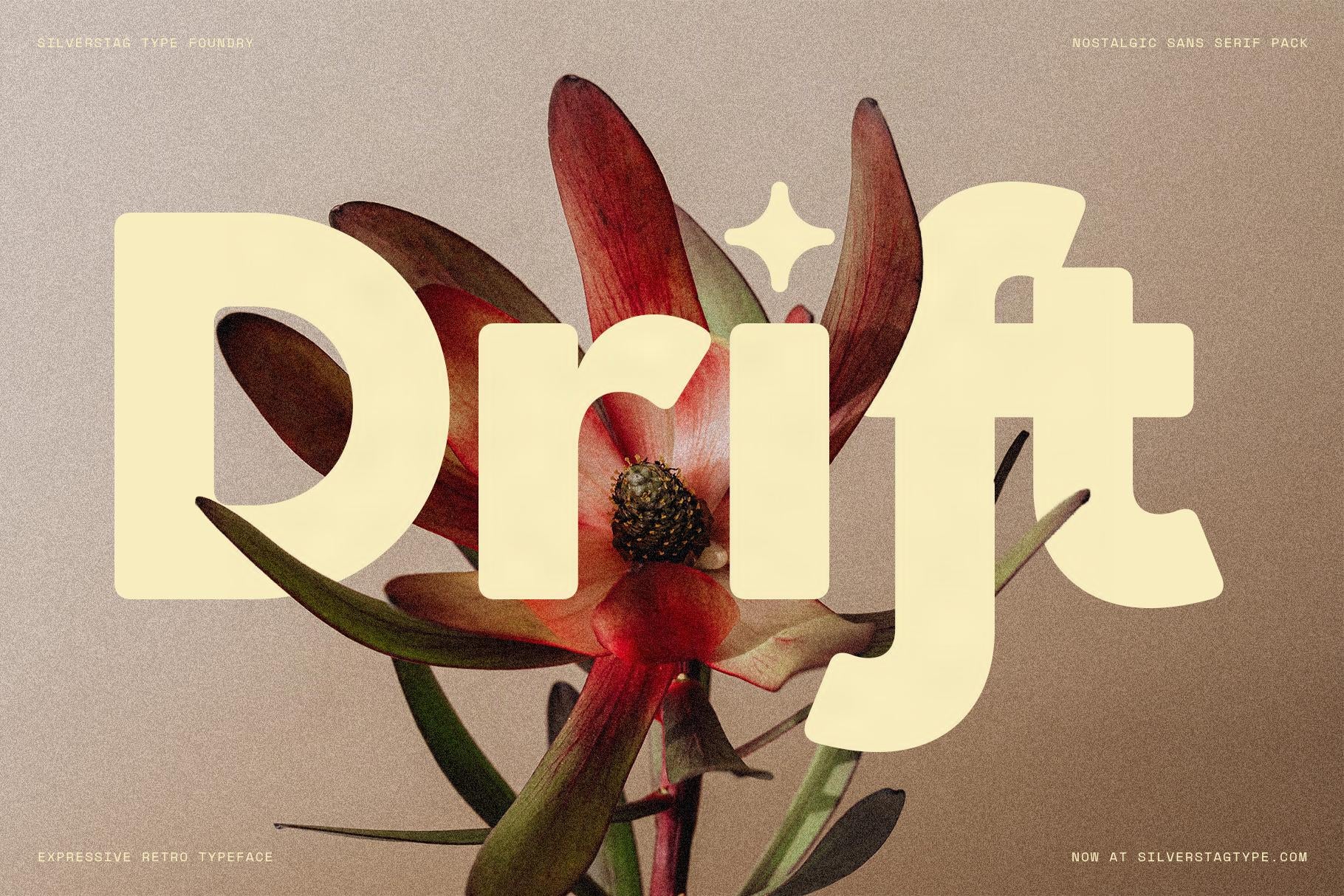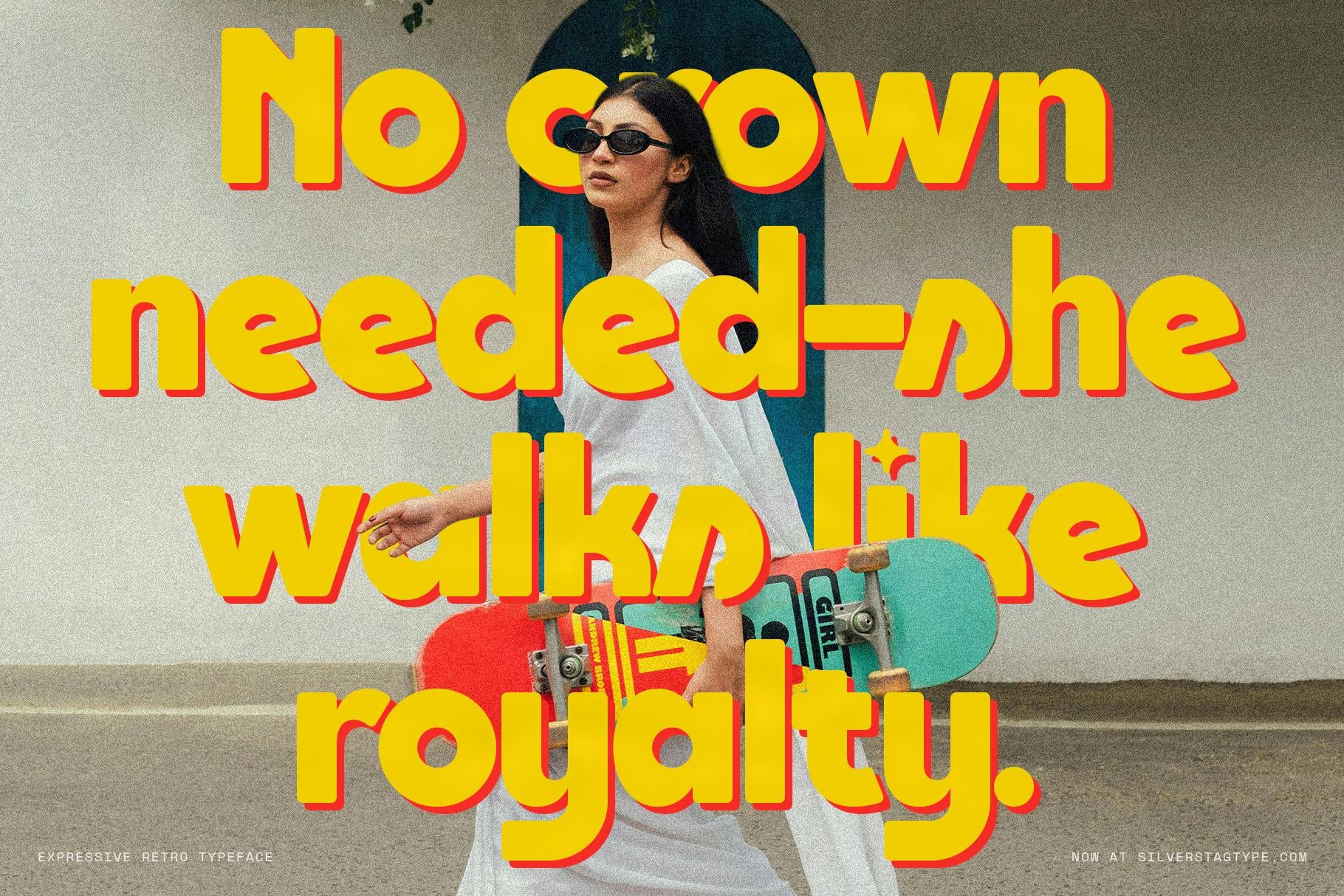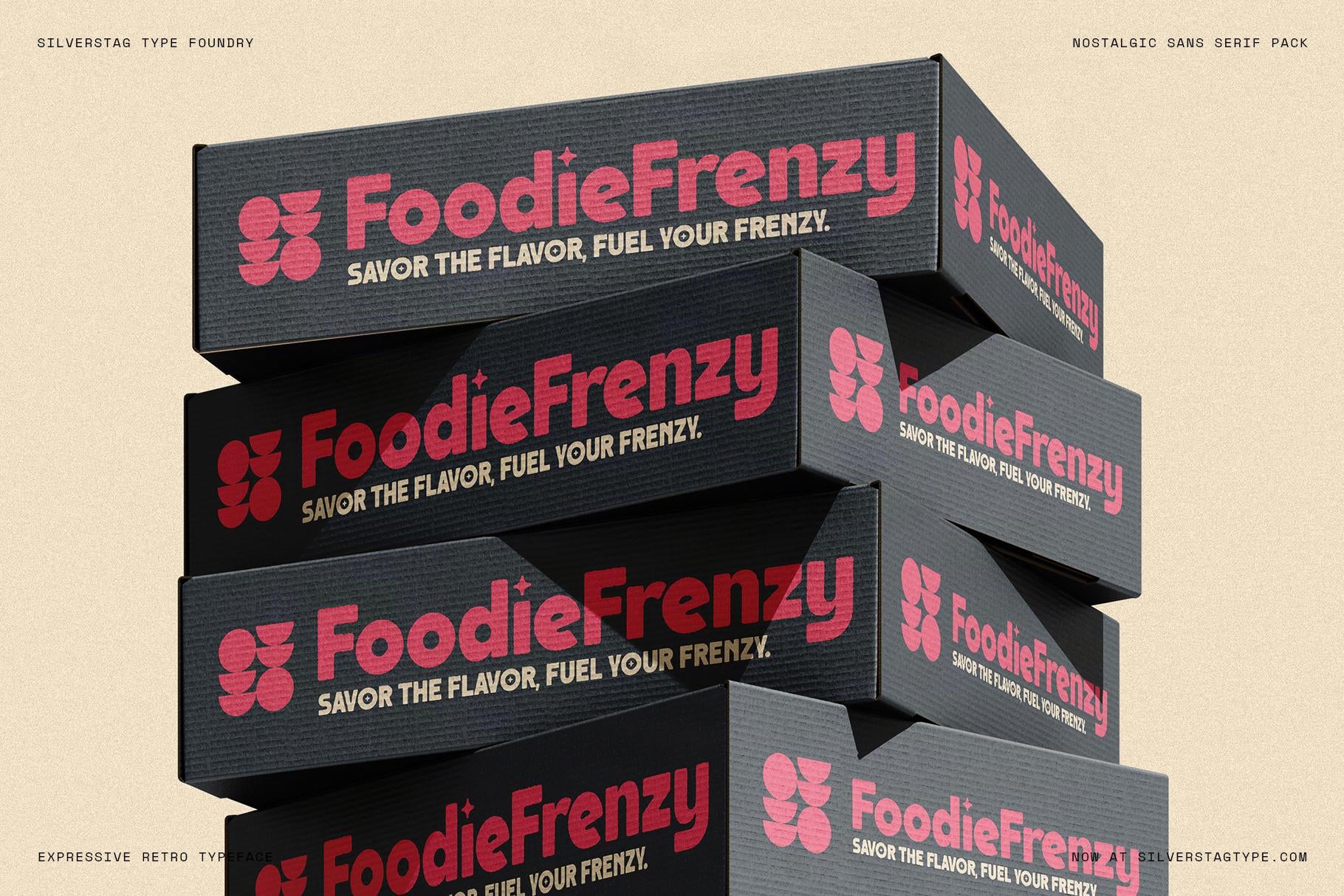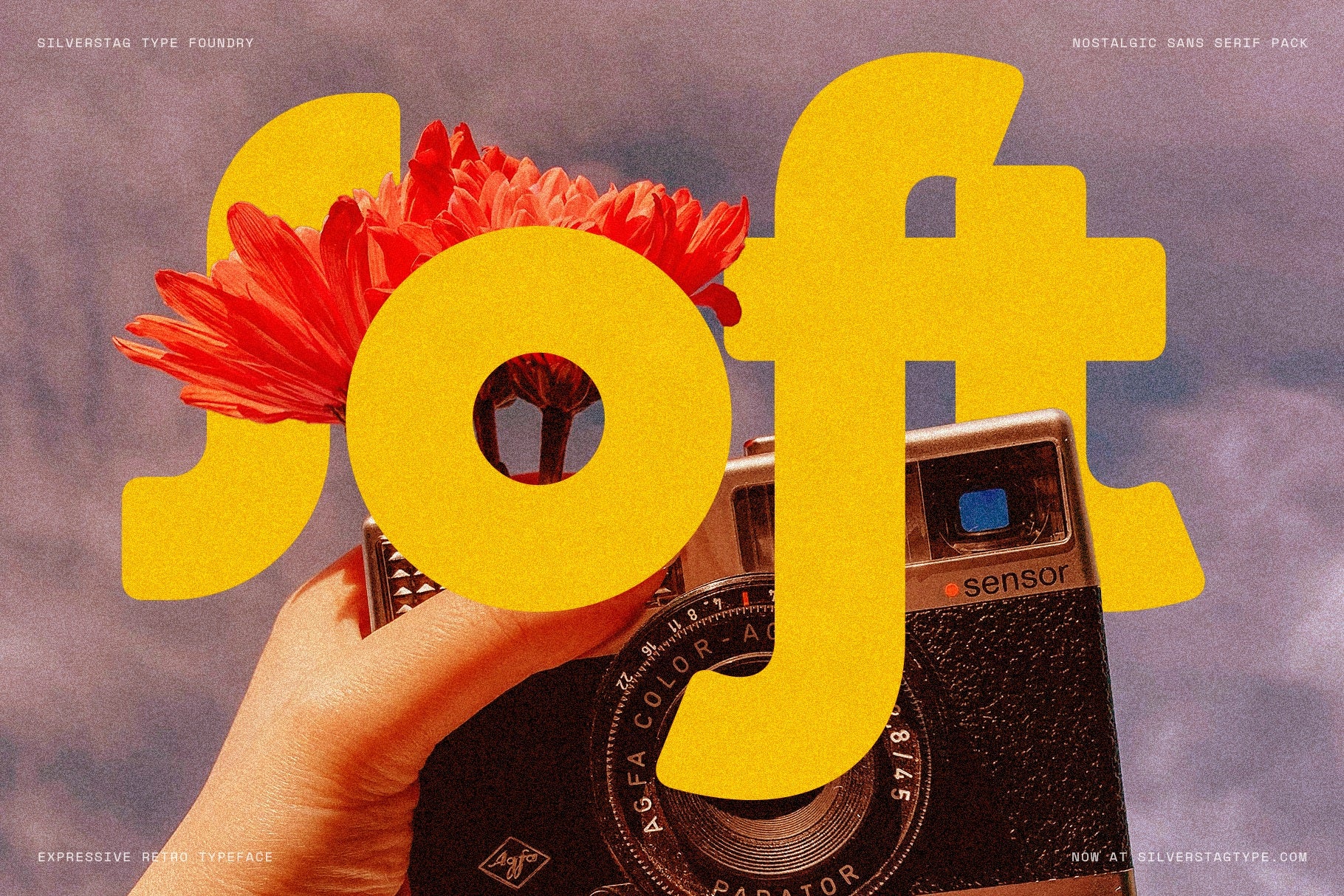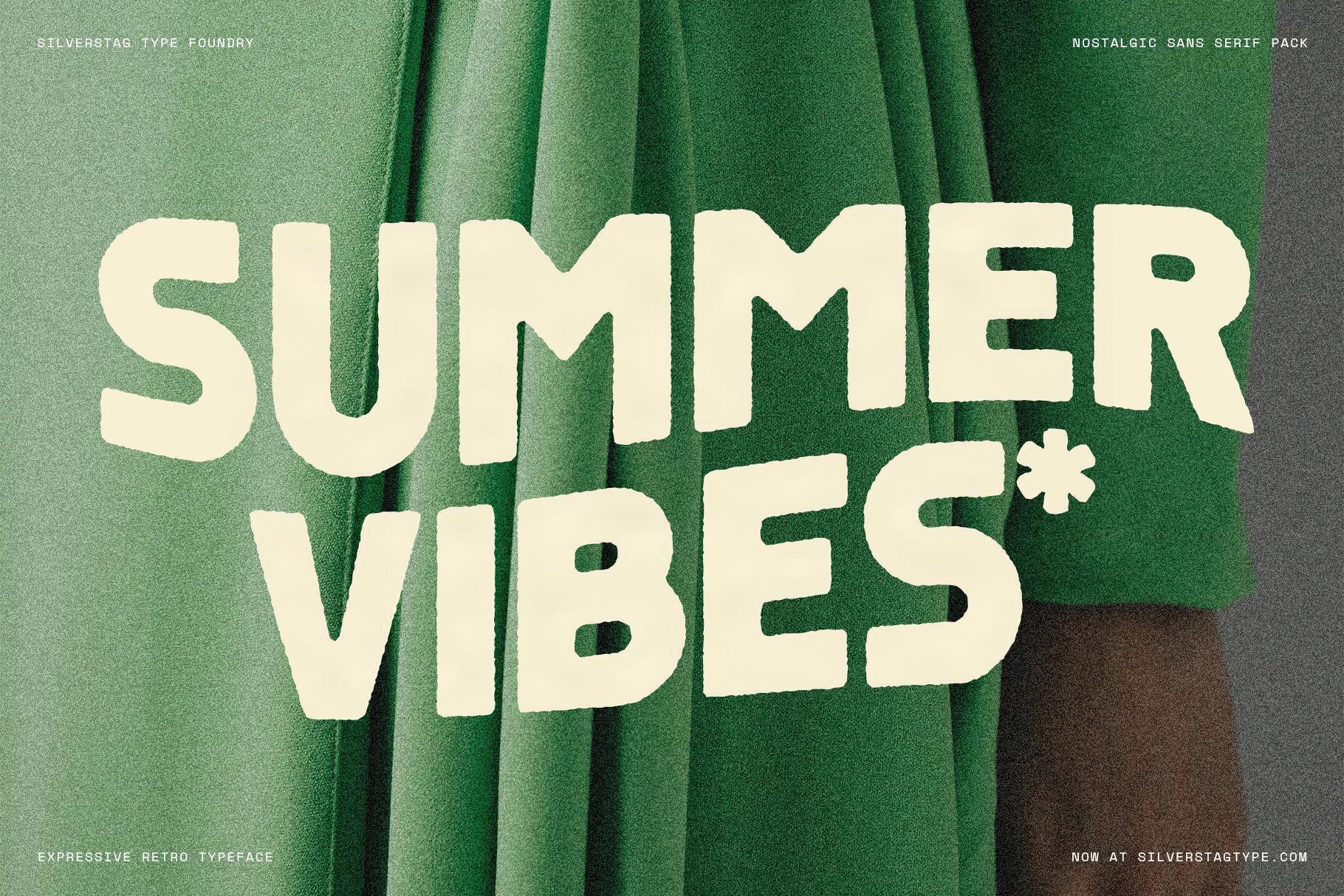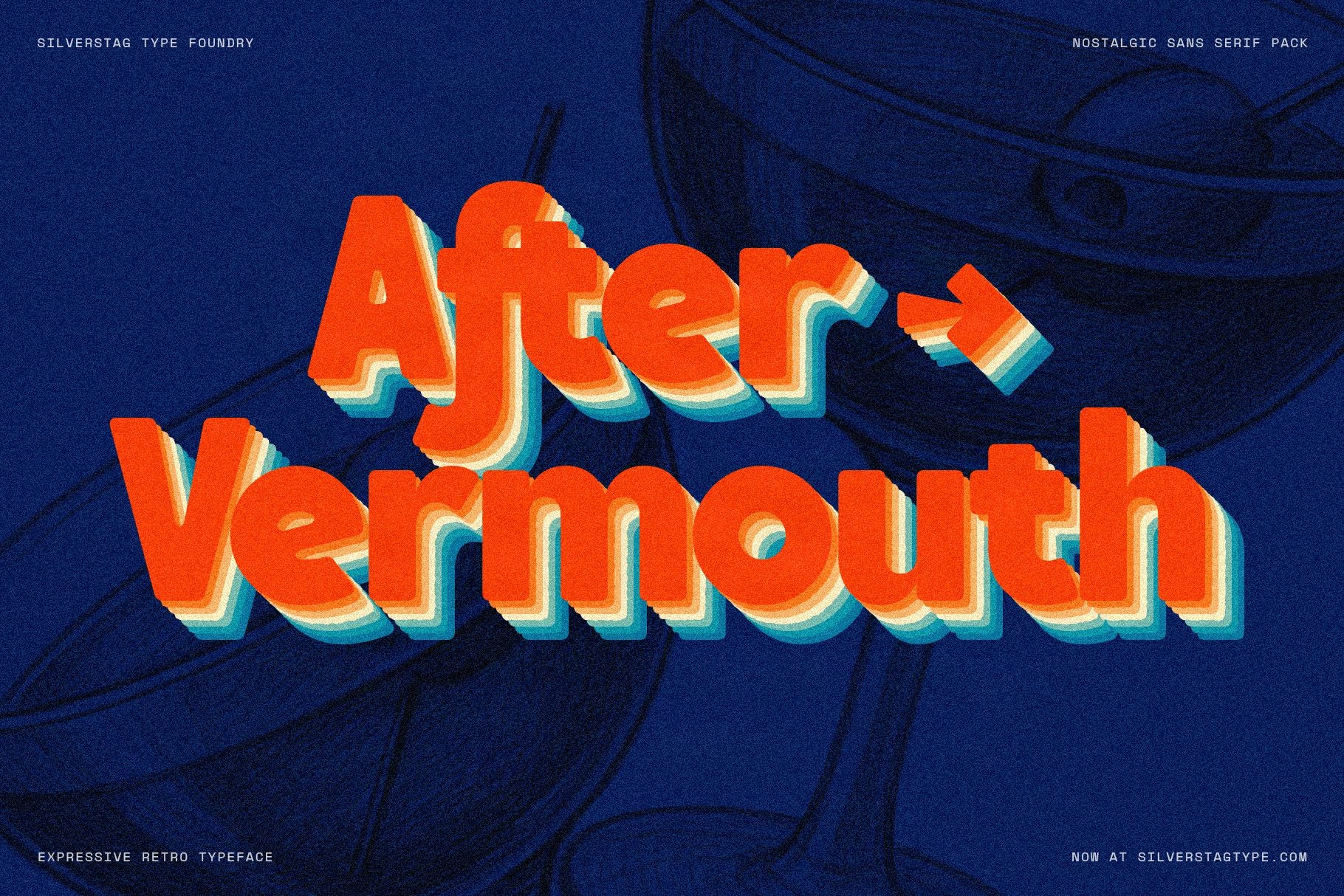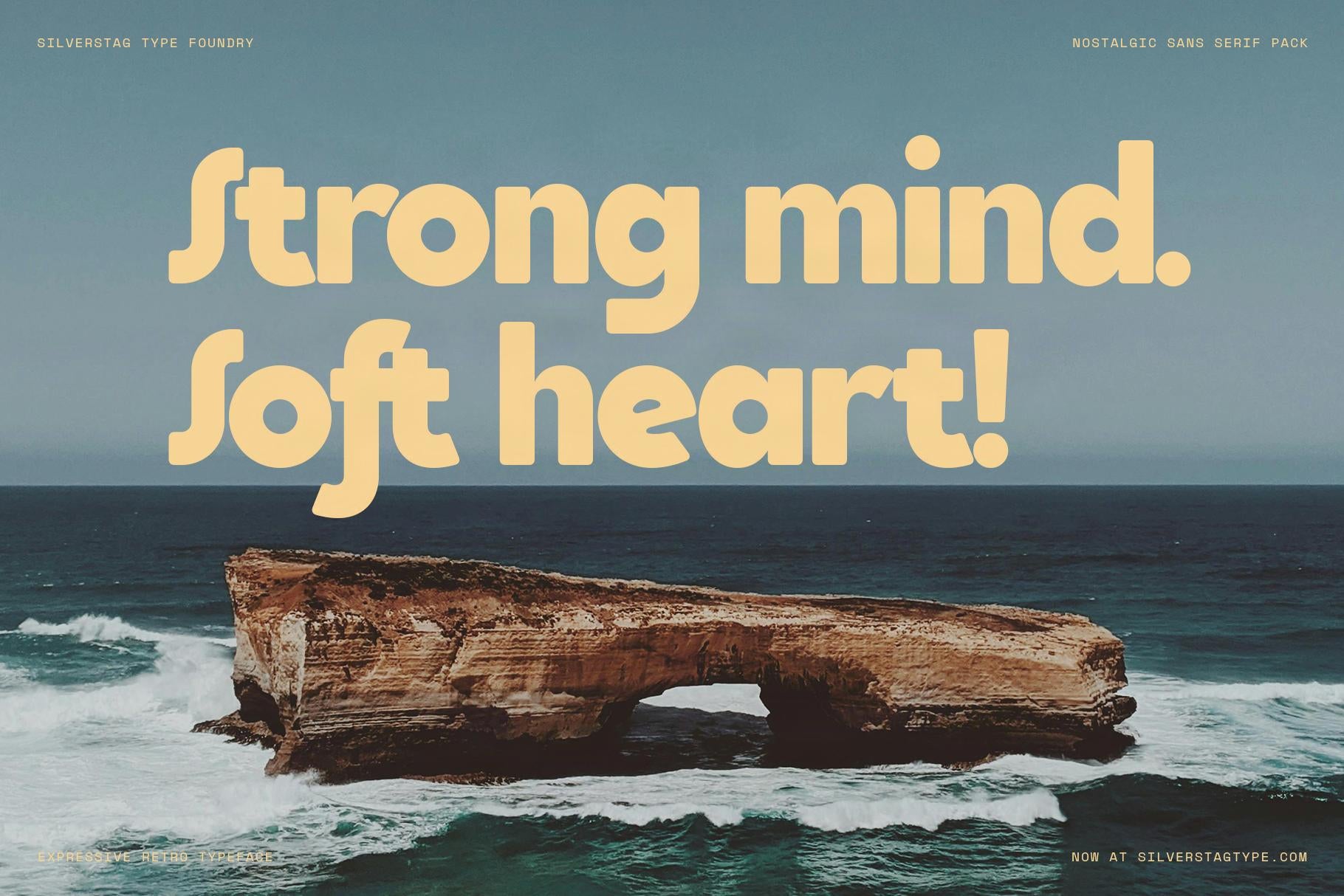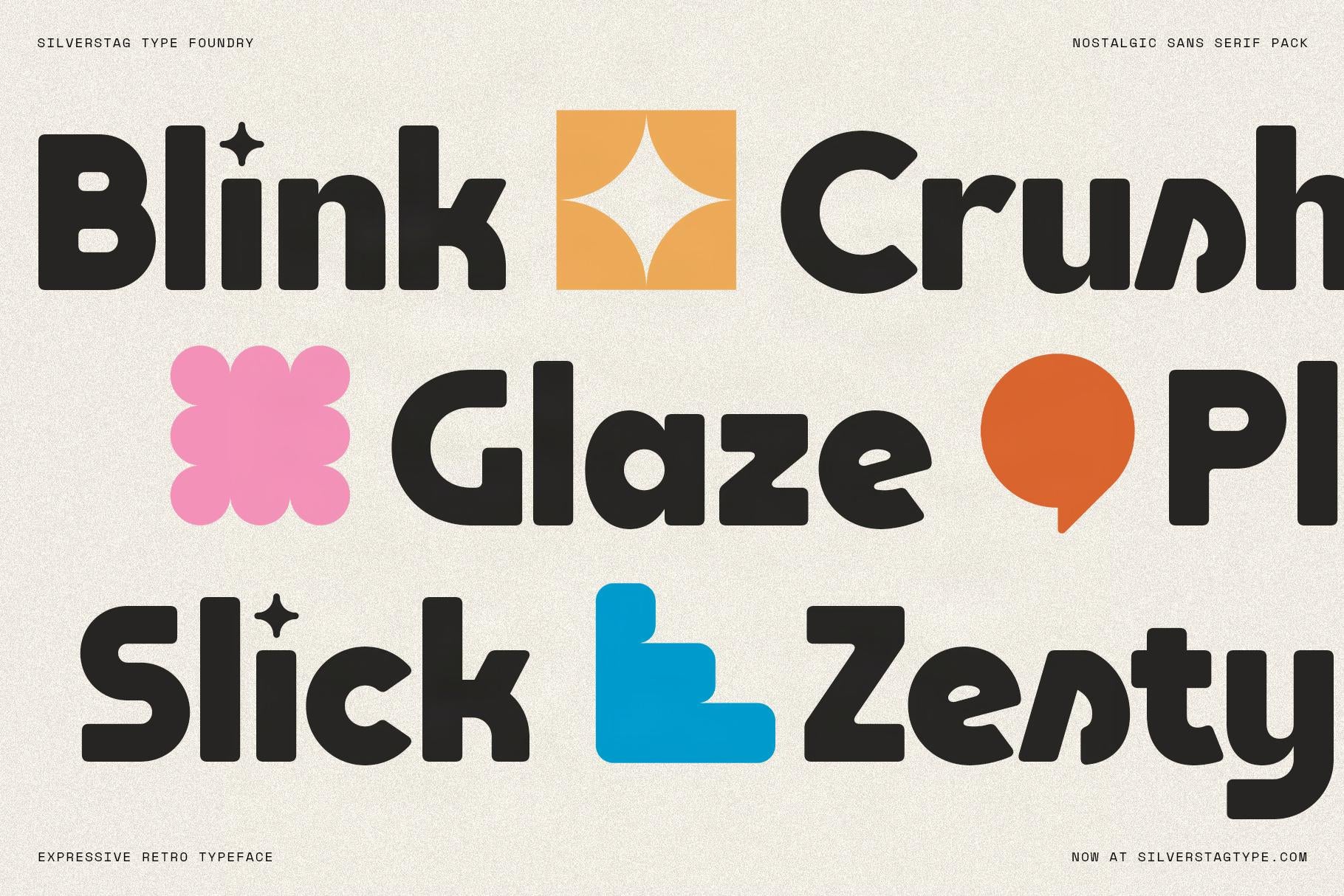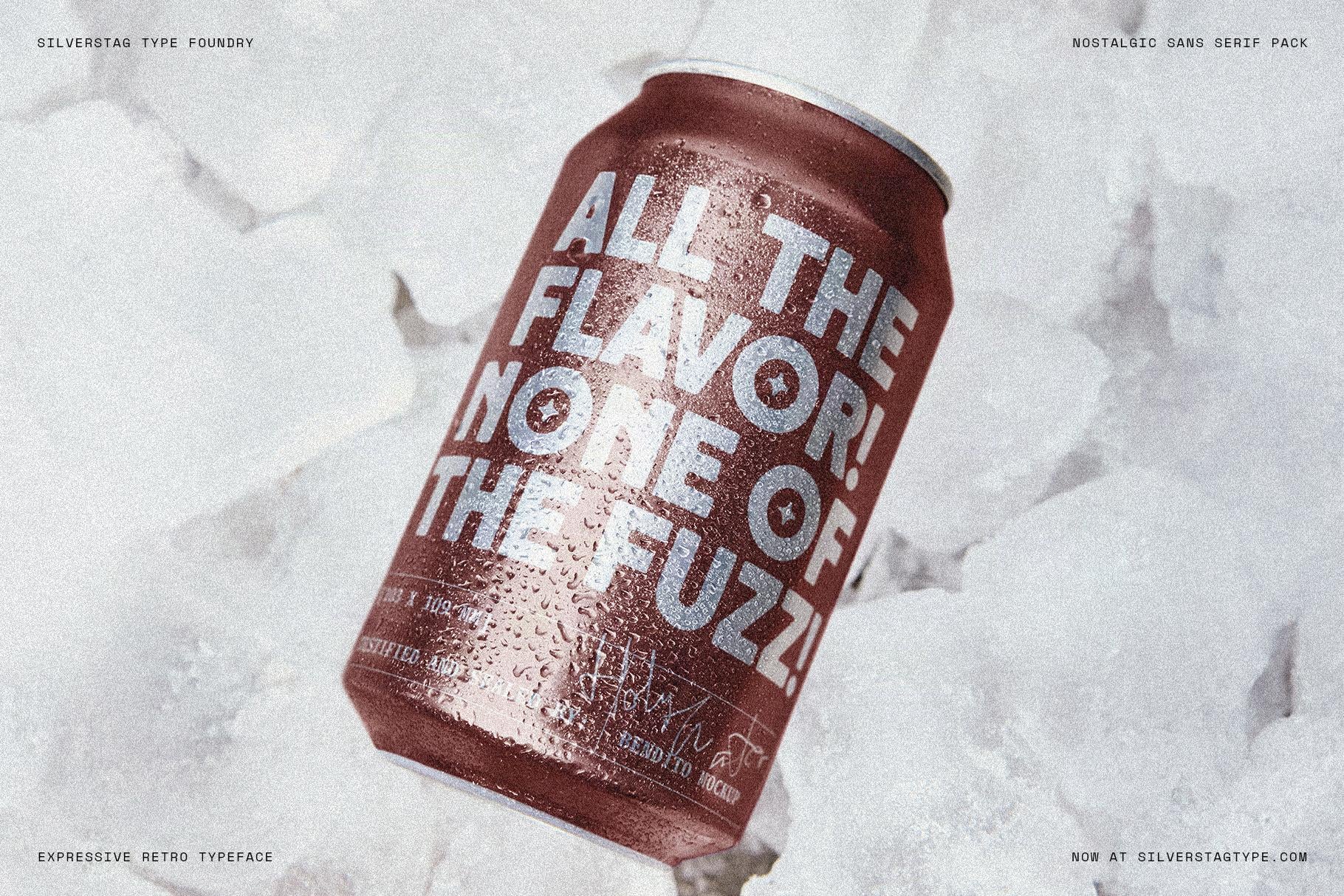
Meet SLTF Saffielle – a bold and nostalgic sans serif typeface that brings playful energy and retro charm into every letter. This expressive font is all about attitude – chunky shapes, soft corners, and quirky ligatures that make your text feel dynamic, alive, and totally unforgettable.
Saffielle is designed for creatives who aren’t afraid to stand out. Whether you’re working on product packaging, a music poster, bold branding, or social media content that demands attention, this font delivers a punch of vintage personality wrapped in a modern design approach.
It comes with over 100 language support, a full set of punctuation and numerals, and a bunch of alternates and ligatures that let you play with rhythm and visual storytelling.
If you’ve been searching for a font with serious groove and zero dull moments – Saffielle’s it.